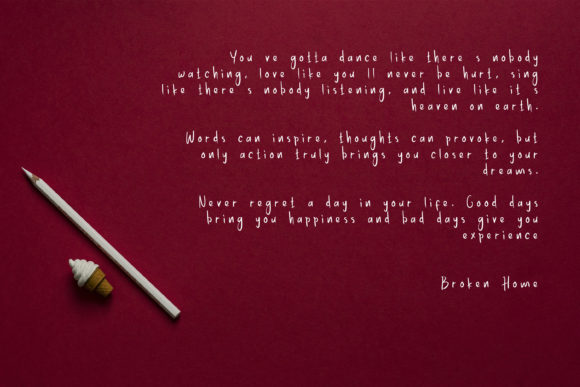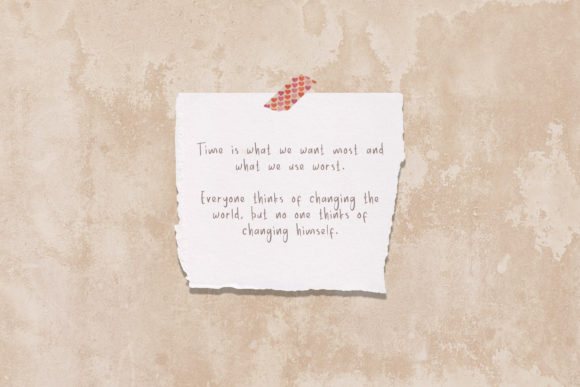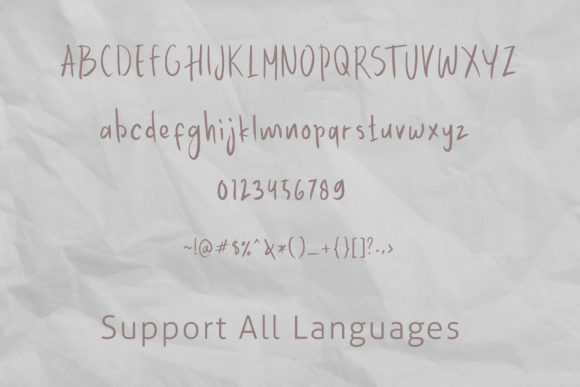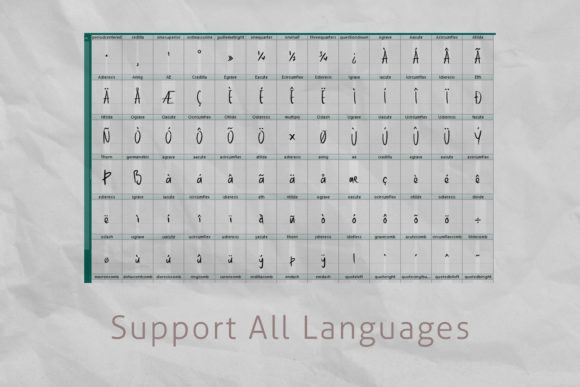
Discover the Elegance of Broken Home Font: Elevate Your Designs with a Timeless Style
In the world of typography, fonts play a crucial role in conveying the essence and aesthetic of a design. Among the myriad of fonts available, the Broken Home Font stands out for its unique blend of elegance and distinctiveness. Described as a flowing handwritten font with an elegant touch, Broken Home is perfect for designers and crafters looking to infuse their projects with a timeless style.
The Distinctive Charm of Broken Home Font
Broken Home Font is characterized by its incredibly distinct and timeless style, making it an ideal choice for a wide range of projects. Whether you’re working on a branding campaign, a website design, or crafting beautiful digital or print materials, this font is sure to leave a lasting impression. Its elegant flow and handwritten charm add a personal touch to any design, setting it apart from more conventional fonts.
Perfect for Your Favorite Projects
One of the key advantages of Broken Home Font is its versatility. Its elegant and flowing script can be used in various contexts, from:
- Branding and Logos: Create memorable and impactful brand identities with a font that exudes sophistication and charm.
- Website Design: Enhance the user experience with a font that offers both readability and aesthetic appeal.
- Digital and Print Materials: From brochures and posters to digital banners and social media graphics, Broken Home Font can elevate your designs to new heights.
- Personal Projects: Add a touch of elegance to your personal crafts, journals, and creative endeavors.
Why Choose Broken Home Font?
With so many fonts available, what makes Broken Home Font a standout choice? Here are a few reasons why designers and crafters are falling in love with this beautiful font:
- Unique Style: Its distinct and timeless style ensures your designs will stand out from the crowd.
- Elegant Touch: The font’s elegant flow adds a touch of sophistication to any project.
- Versatility: Suitable for a wide range of applications, from professional designs to personal crafts.
- Easy to Read: Despite its elegant and flowing nature, Broken Home Font remains highly readable, making it perfect for both headings and body text.
Broken Home Font is more than just a typeface; it’s a design element that can transform your projects with its elegant touch and timeless style. Whether you’re a professional designer or a crafting enthusiast, this font offers the perfect blend of distinctiveness and versatility. By incorporating Broken Home Font into your designs, you’re not just choosing a font; you’re embracing a style that will make your work memorable and impactful. So, fall in love with Broken Home Font and let its charm elevate your designs to spectacular new heights.